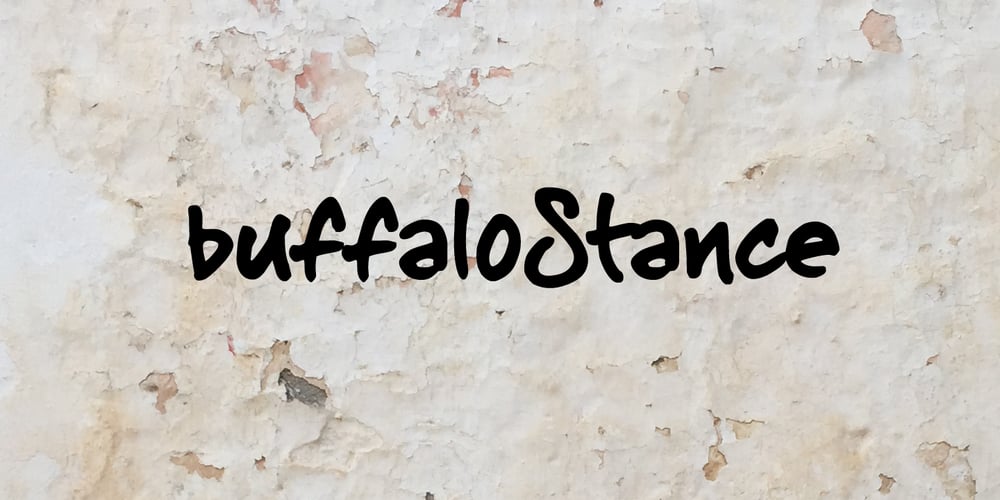
BuffaloStance
BuffaloStance font
BuffaloStance Font Family was designed by Jeroen “Joebob” van der Ham and published by JOEBOB graphics. BuffaloStance contains 1 styles and family package options. BuffaloStance is keeping your arms crossed high in front of your chest. Perfect for designs that need a quick, casual handwritten look. A complete character set with numbers and most (but not all) special signs.